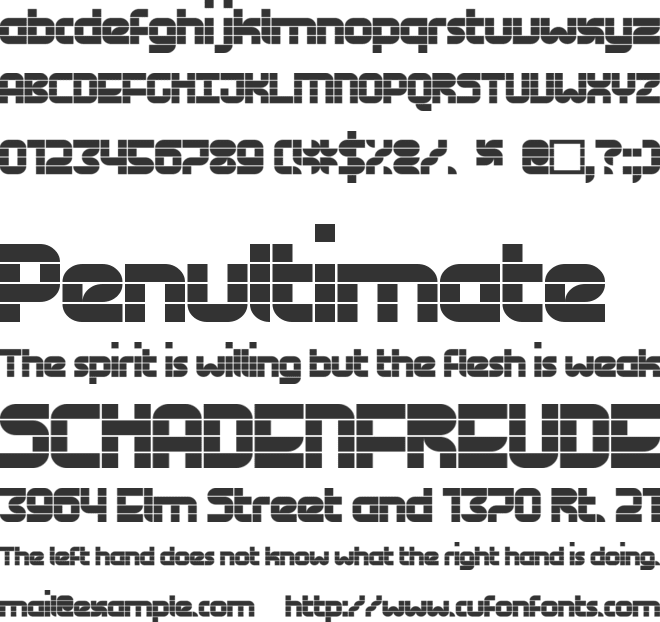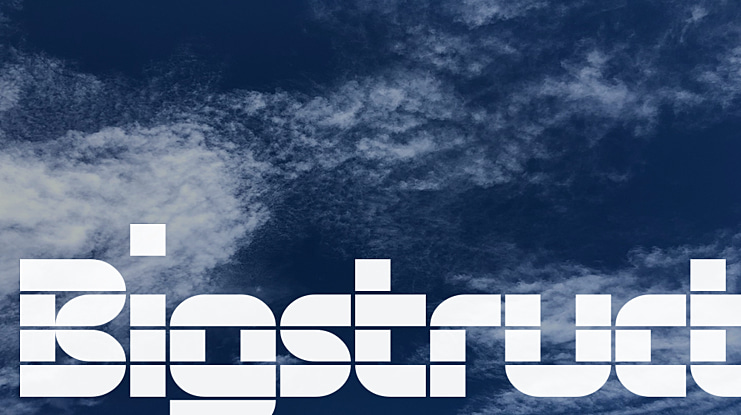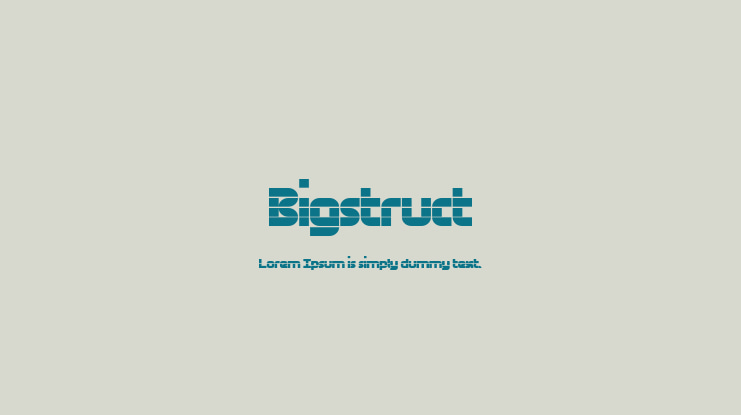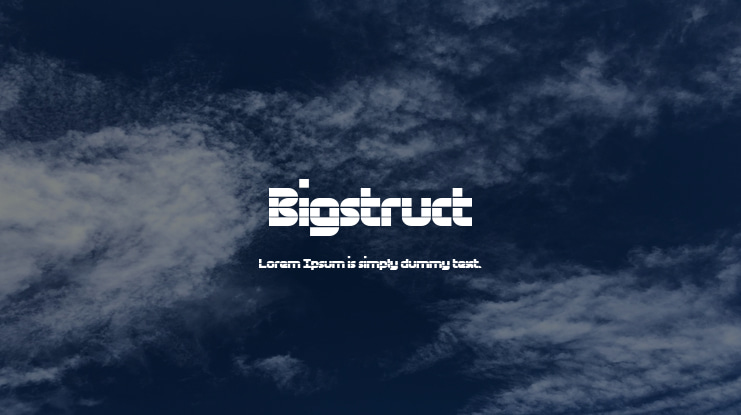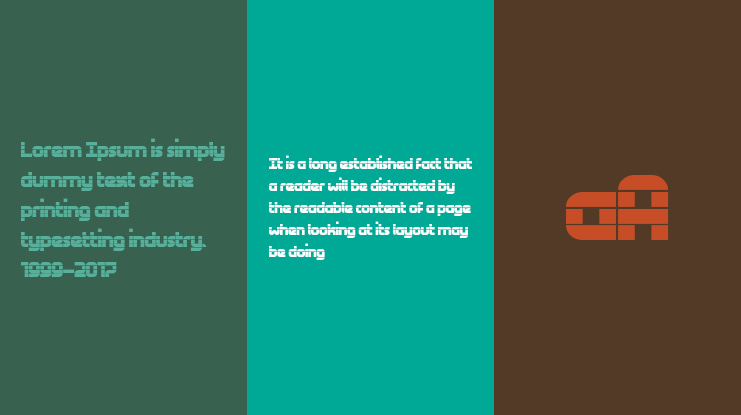
Bigstruct Font
Daniel Lyons
Relating to the Fontstruct logo, this is Bigstruct! It's like a really huge font that supports about all languages.
Copyright Daniel Lyons 2015 “Bigstruct” is based on “logo” by “Rob Meek” (http://fontstruct.com/fontstructors/meek)